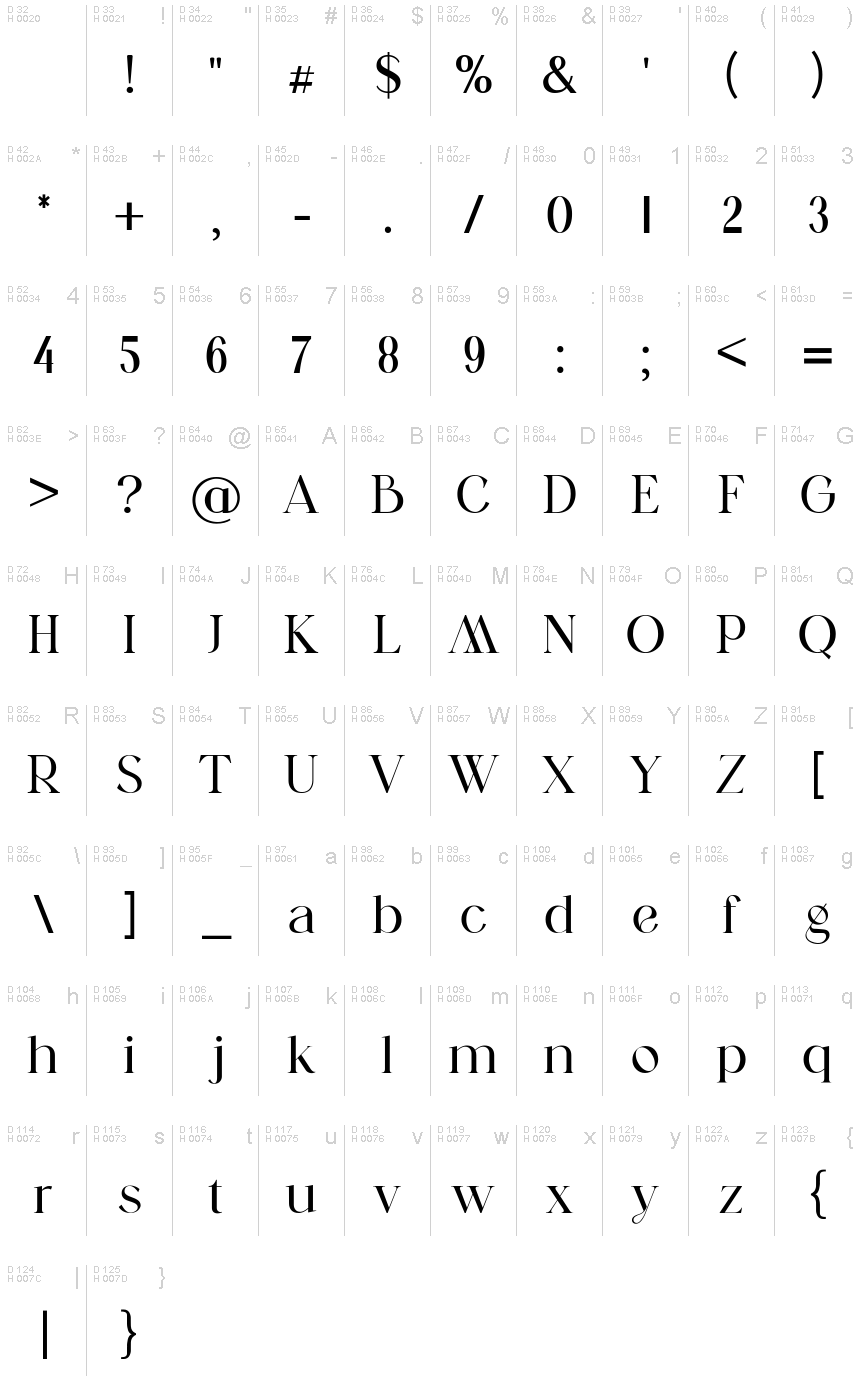
Skywalks
Skywalks, crafted by UI Creative, embodies elegance and sophistication with its distinctive serif style. The font showcases an exquisite interplay of sharp serifs and smooth curves, making it both classic and contemporary. Its strikingly bold yet refined presence ensures that any text set in Skywalks commands attention.
Ideal for high-end branding, editorial designs, and luxurious packaging, Skywalks’ timeless appeal enhances readability while exuding a sense of grandeur. Whether used for headlines or body text, this font's unique blend of traditional serif elements with modern design principles makes it versatile for various creative projects. Embrace the elegance of Skywalks to elevate your next design endeavor with a touch of class and distinction.